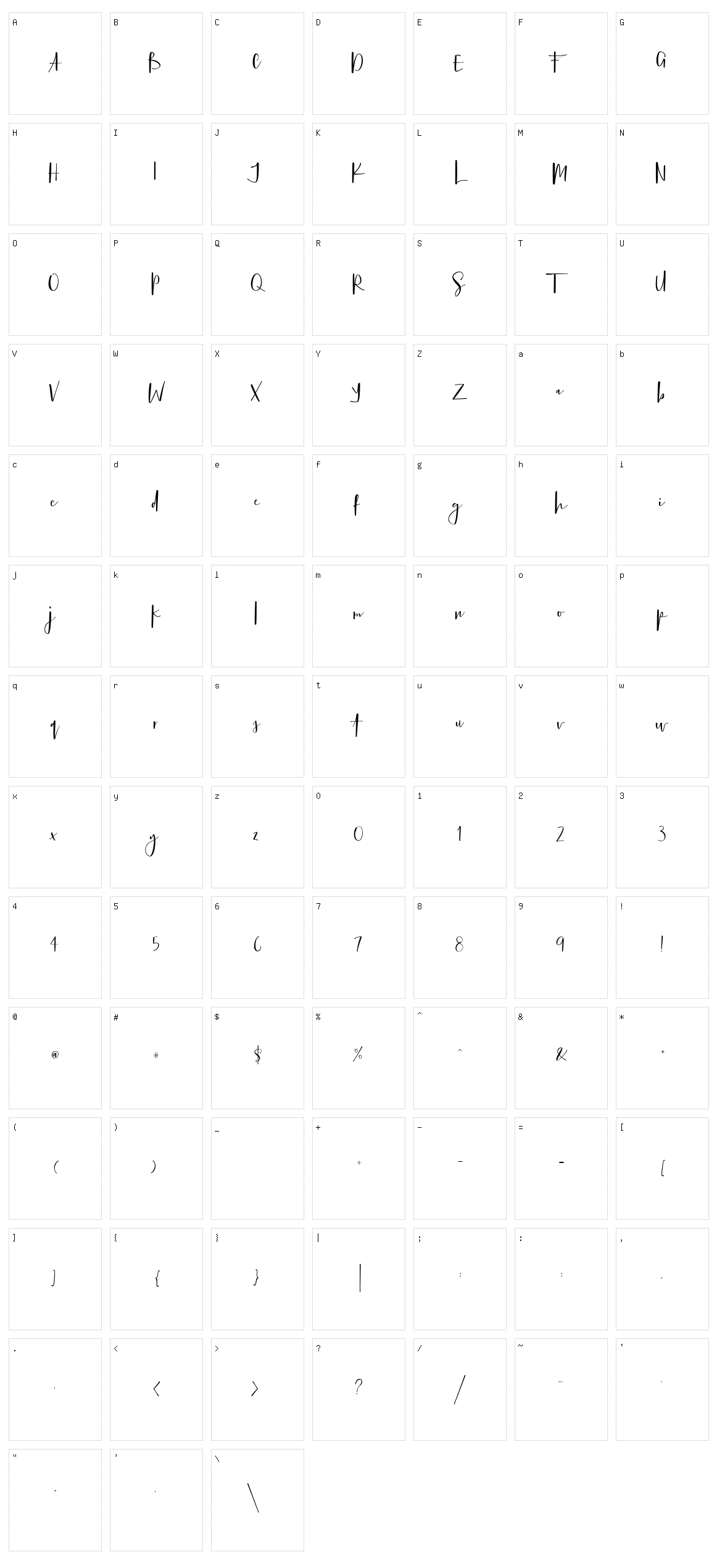
The free font Bellissima is carefully designed by Ink creative, showcasing a thoughtful balance of creativity and usability and falls under the Script font style. When you download the ZIP file, it contains only 90.07 KB of font files, making it lightweight and quick to download. Please review the license details below to understand permitted usage and distribution rights. If license information is not available, we recommend using this font for personal projects only or contacting the author directly for commercial usage permissions.